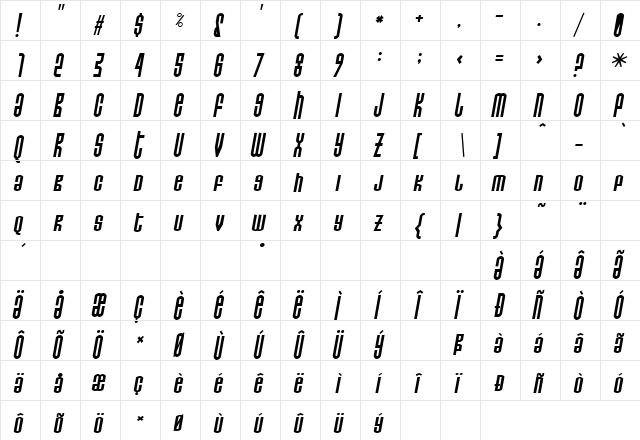
Do not eat this Skew Regular
Design Context for Do not eat this Skew Typeface
Do not eat this Skew takes a measured approach to typography — its balanced proportions and neutral character make it a reliable workhorse for both digital and print work.